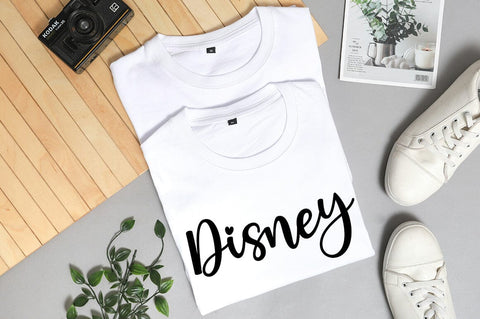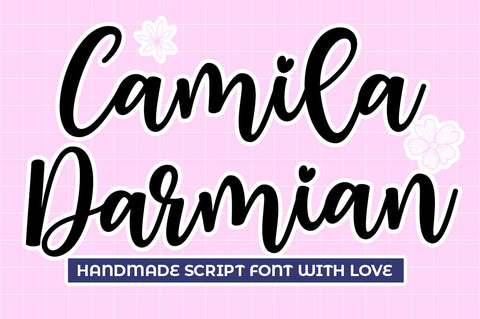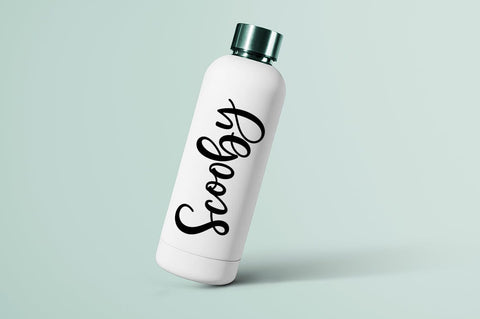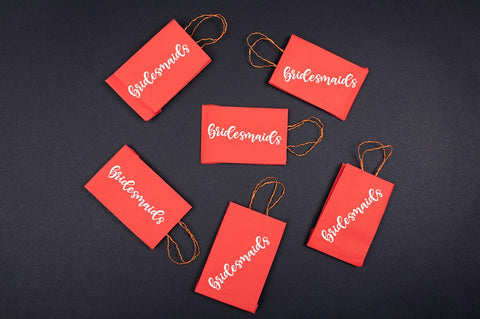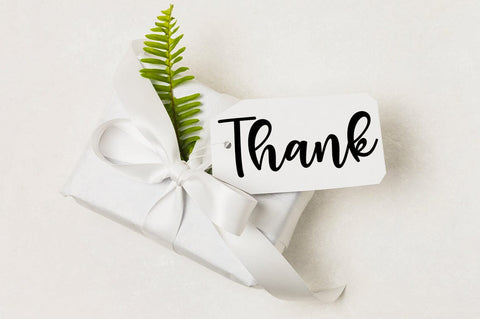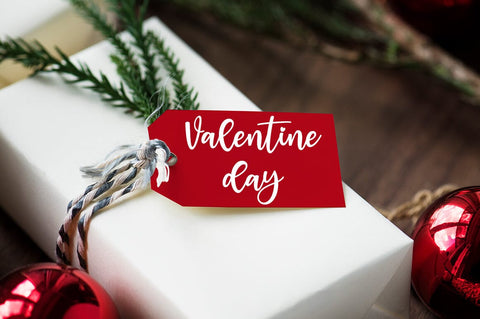
Camila Darmian
Immerse yourself in the allure of the Camila Darmian Script, a contemporary calligraphy masterpiece that embodies both elegance and ease. With its unique swash, this font lends a personal yet sophisticated touch to every whimsical stroke. It offers immense versatility, proving a perfect fit for a wide diversity of applications. From logos that need a dash of artistic flair, to product packaging that yearns for a touch of elegance, Camila Darmian Script does it all. Whether you're crafting wedding invitations that tell a story, designing bold branding, creating catchy headlines, crafting captivating signage or labels, or penning down heartfelt signatures, this versatile font holds the magic. Carry the enchantment over to book covers, posters, quotes, and more. Camila Darmian Script - where aesthetic charm meets practical functionalit